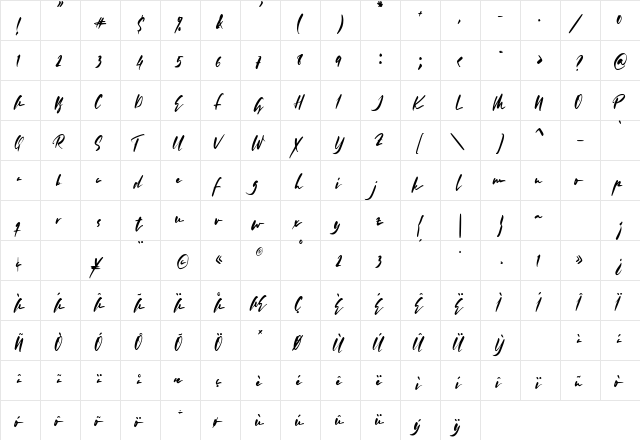
Morning Silhouette Regular
Design Context for Morning Silhouette Typeface
Morning Silhouette is a composed and adaptable typeface that performs quietly and consistently across a wide range of design contexts.